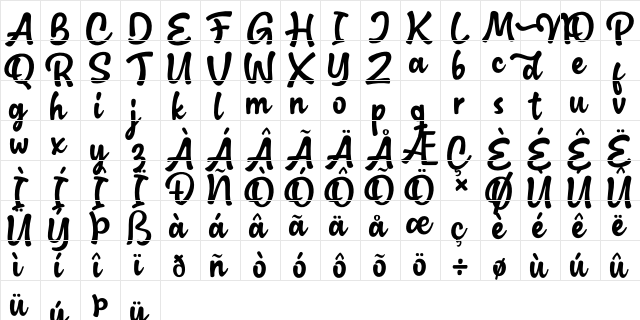
Nadilla Regular
Design Context for Nadilla Typeface
Nadilla is a composed and adaptable typeface that performs quietly and consistently across a wide range of design contexts.